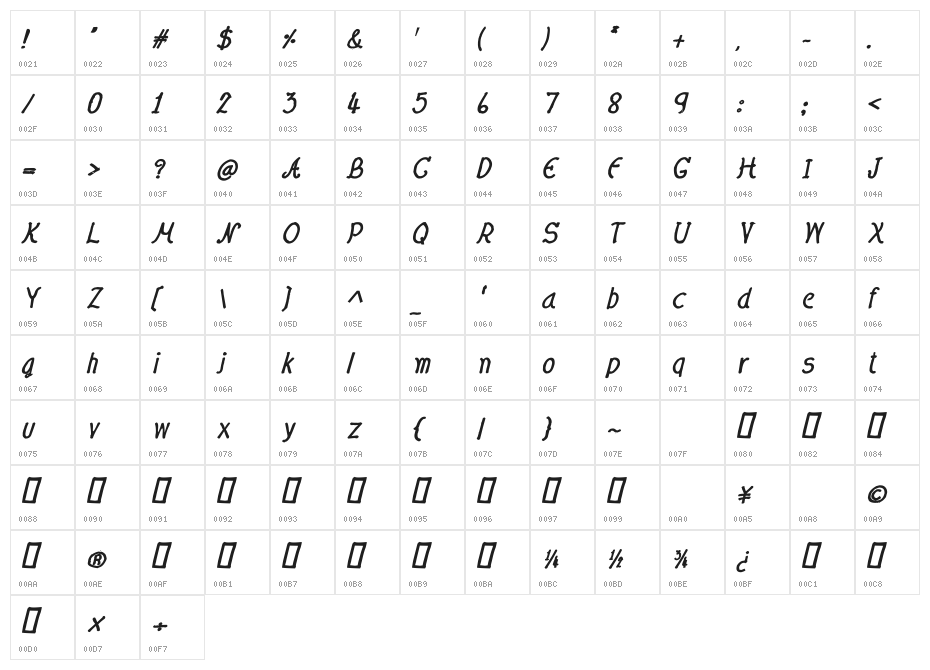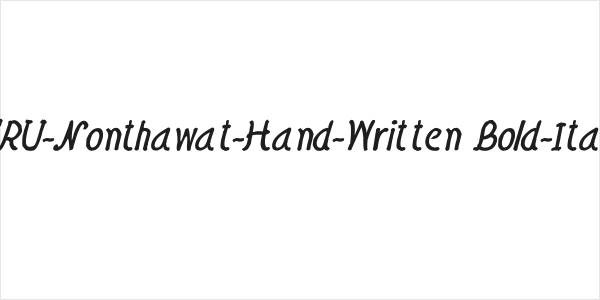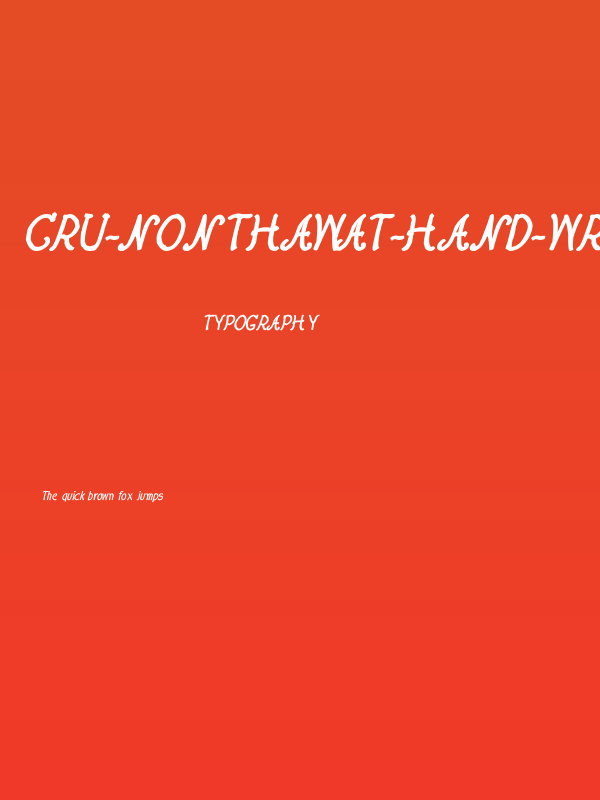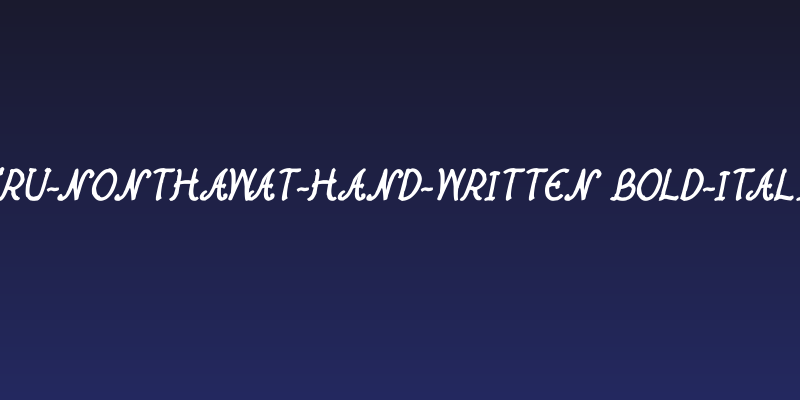
CRU-Nonthawat-Hand-Written Bold-Italic Font
CRU-Nonthawat-Hand-Written Bold-Italic Description
This font exhibits a bold and italicized handwritten style, characterized by its fluid and dynamic strokes. The letters have a natural, organic flow, reminiscent of casual handwriting with a touch of elegance. The uppercase letters are slightly larger and more pronounced, while the lowercase letters maintain a consistent rhythm and balance. The numbers and special characters are crafted with the same attention to detail, ensuring uniformity across the font. This style is both approachable and stylish, making it suitable for a variety of creative applications.
Use CaseLogos, Headlines, Invitations
Proposed ProjectsIdeal for greeting cards, personal branding, invitations, and creative projects that require a personal touch.